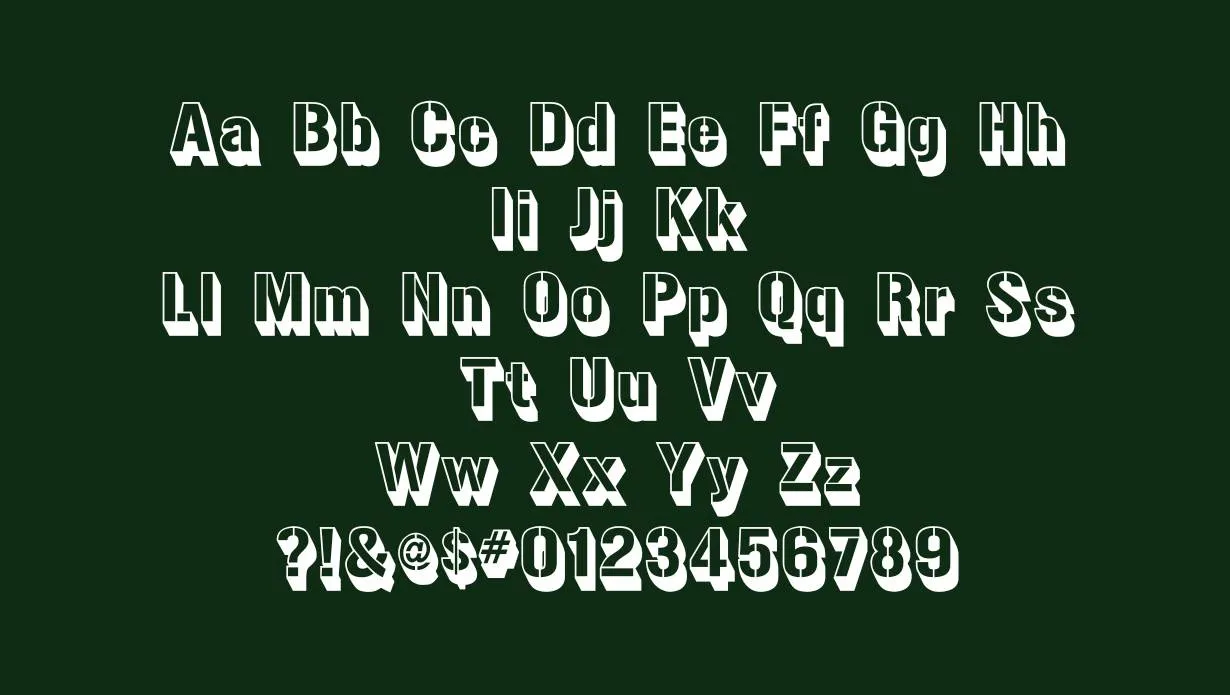
The Gunplay 3D font comes alive with its three-dimensional appeal as if the letters jump out from the canvas. Adobe Photoshop, unleashes immersive and vivid posters or designs with a tangible depth.
When integrated into CSS, it infuses depth and realism into web elements, delivering an engaging visual experience. Canva, it’s the perfect tool for crafting eye-catching 3D-style social media visuals or dynamic event graphics that pop off the screen.